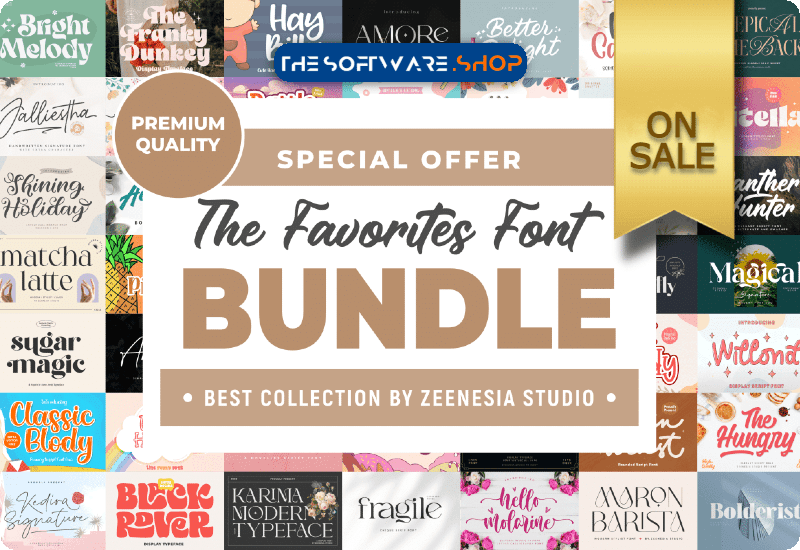
Take a closer look at what The Favorites Font Bundle has to offer and how you can make the most of these premium fonts in your next project.
What’s included in The Favorites Font Bundle?
The Favorites Font Bundle includes 40 premium fonts, covering a range of styles including script and display fonts. From the Sugar Magic Sans Serif Font to the Hello Agatha Script & Handwritten Font, this bundle has a font to suit every design style.
- Sugar Magic Sans Serif Font
- Black Rover Display Font
- Hello Agatha Script & Handwritten Font
- Little Humble Display Font
- Classic Blody Script & Handwritten Font
- Epical Comeback Display Font
- Jalliestha Font Script & Handwritten Font
- Bright Melody Display Font
- Magical Signature Serif Font
- Amore Dreaming Script & Handwritten Font
- Fresh Pineapple Display Font
- The Franky Dunkey Display Font
- Butter Carney Script & Handwritten Font
- Kid Candy Display Font
- Shining Holiday Script & Handwritten Font
- Hello Molarine Font Script & Handwritten Font
- Honey Butterfly Display Font
- Karima Serif Font
- Simple Pen Serif Font
- Romantica Story Script & Handwritten Font
- Amsterland Script Font
- Bolderist Serif Font
- Hay Billy Display Font
- Qitella Serif Font
- Fragile Serif Font
- Maron American Script & Handwritten Font
- Panther Hunter Script & Handwritten Font
- Better Delight Script & Handwritten Font
- Matcha Latte Serif Font
- Lemonilla Script & Handwritten Font
- Maron Barista Sans Serif Font
- Kedira Signature Script & Handwritten Font
- Battle Bingo Display Font
- The Hungry Script & Handwritten Font
- Adhellia Script & Handwritten Font
- Menthari Script & Handwritten Font
- Queen Emirates Serif Font
- Choco Candy Display Font
- Golden Blast Script & Handwritten Font
- Willond Display Font
How can you use The Favorites Font Bundle?